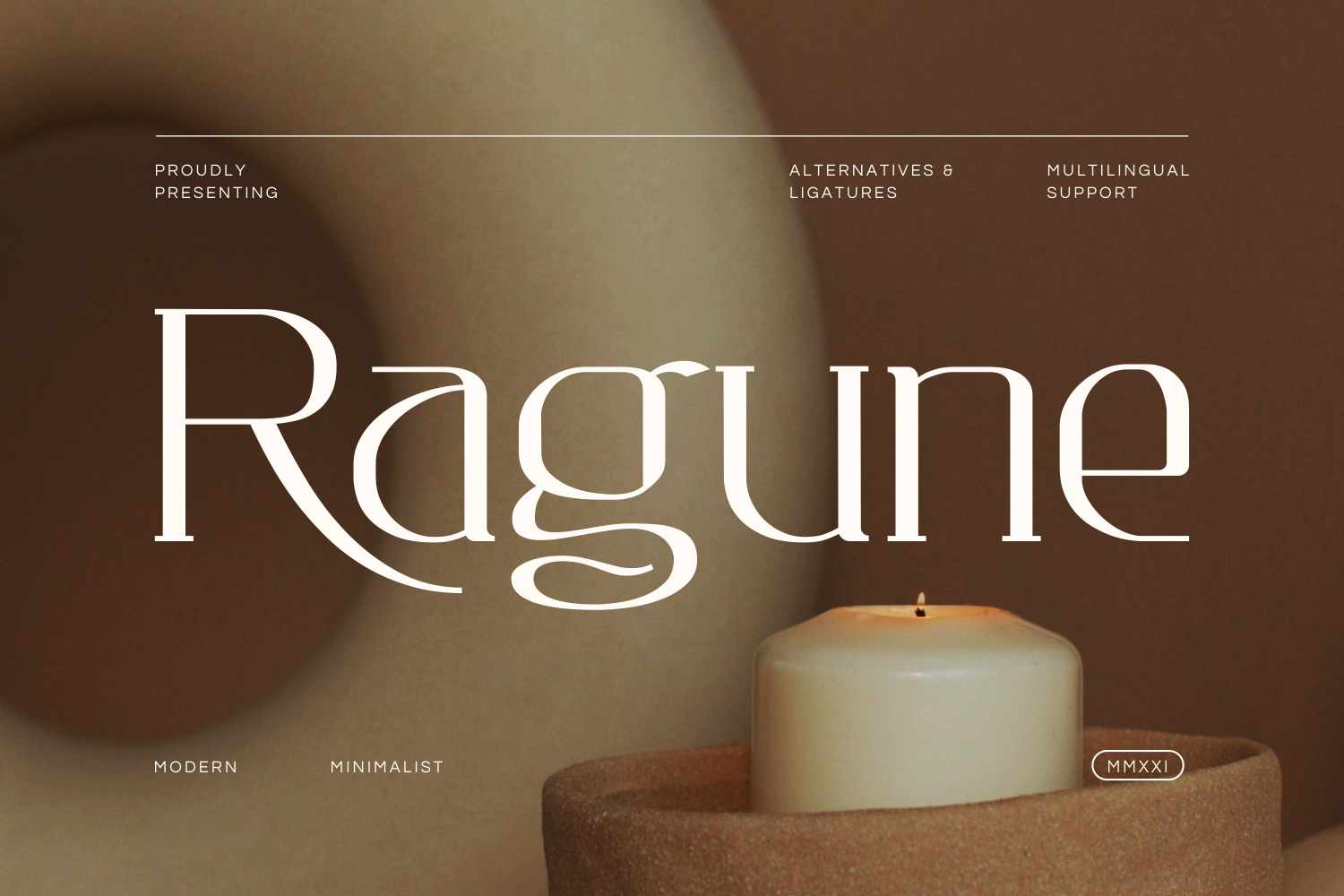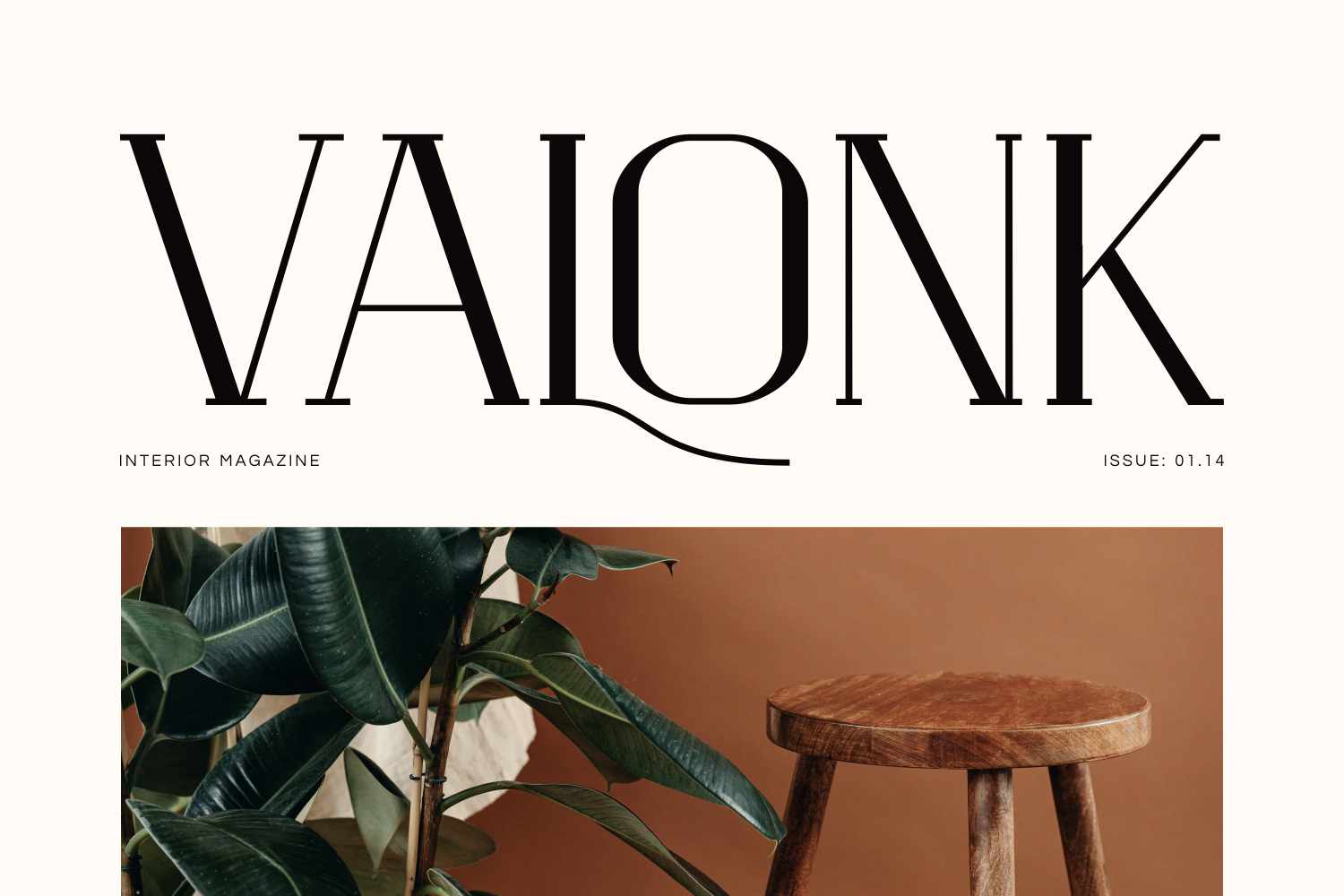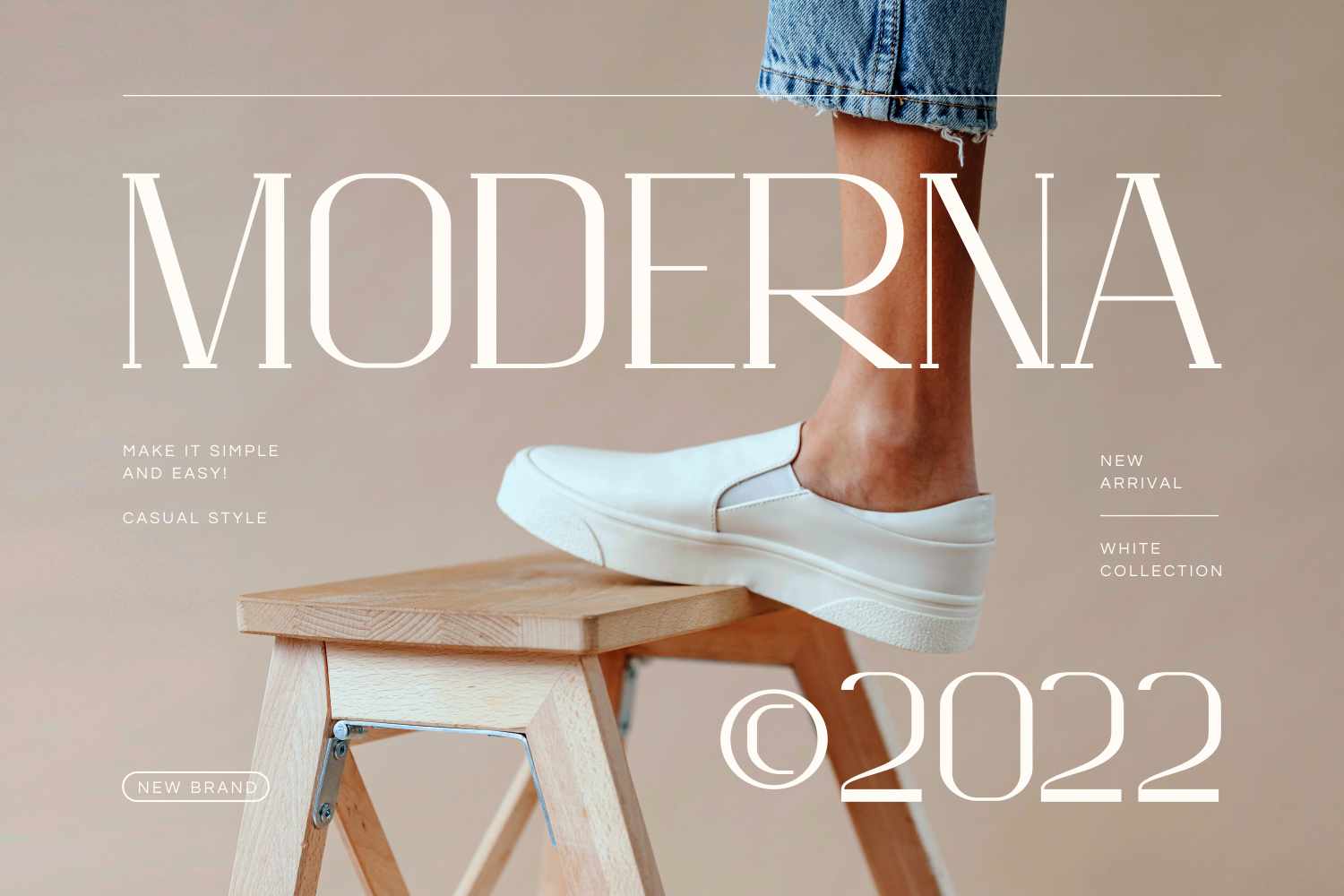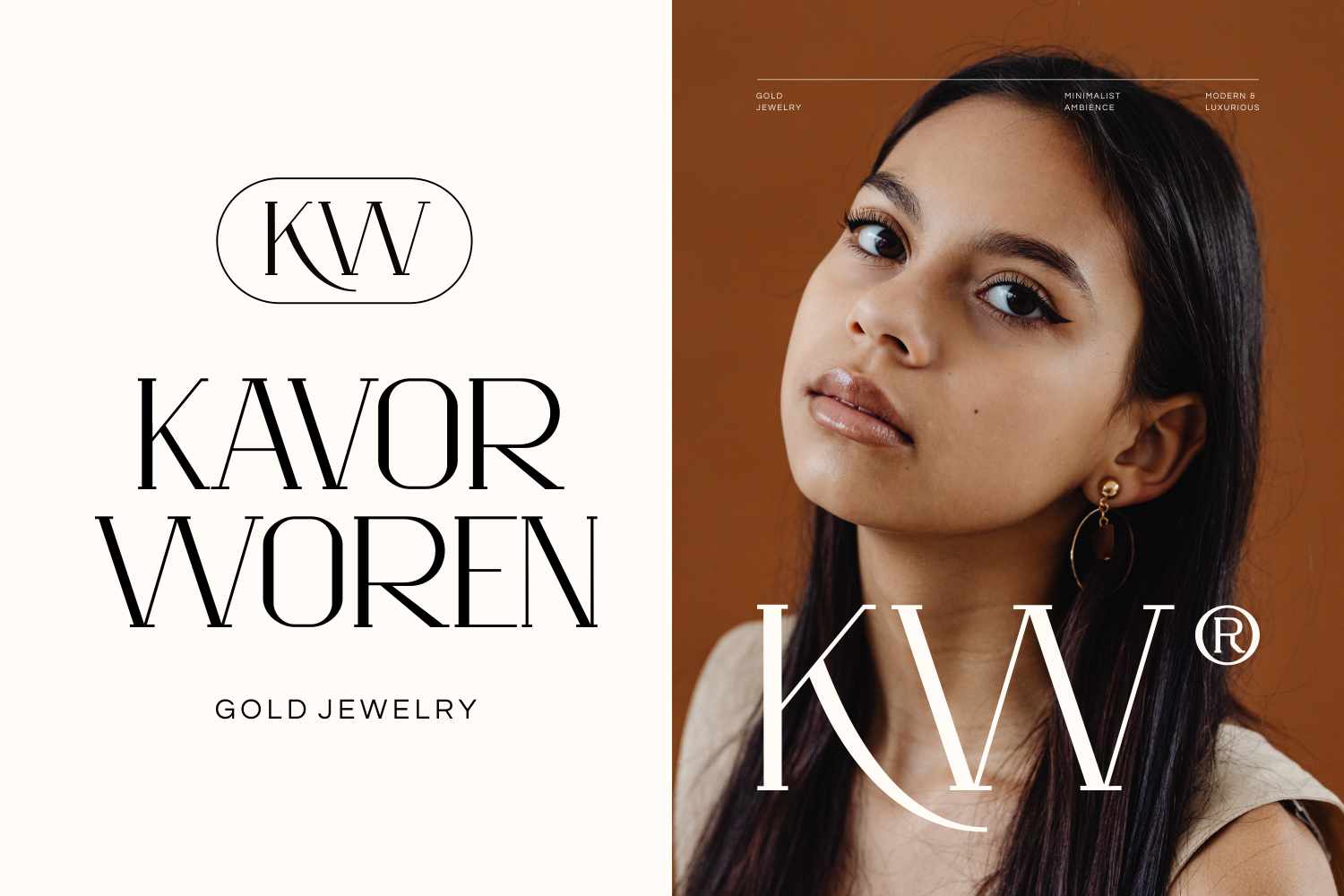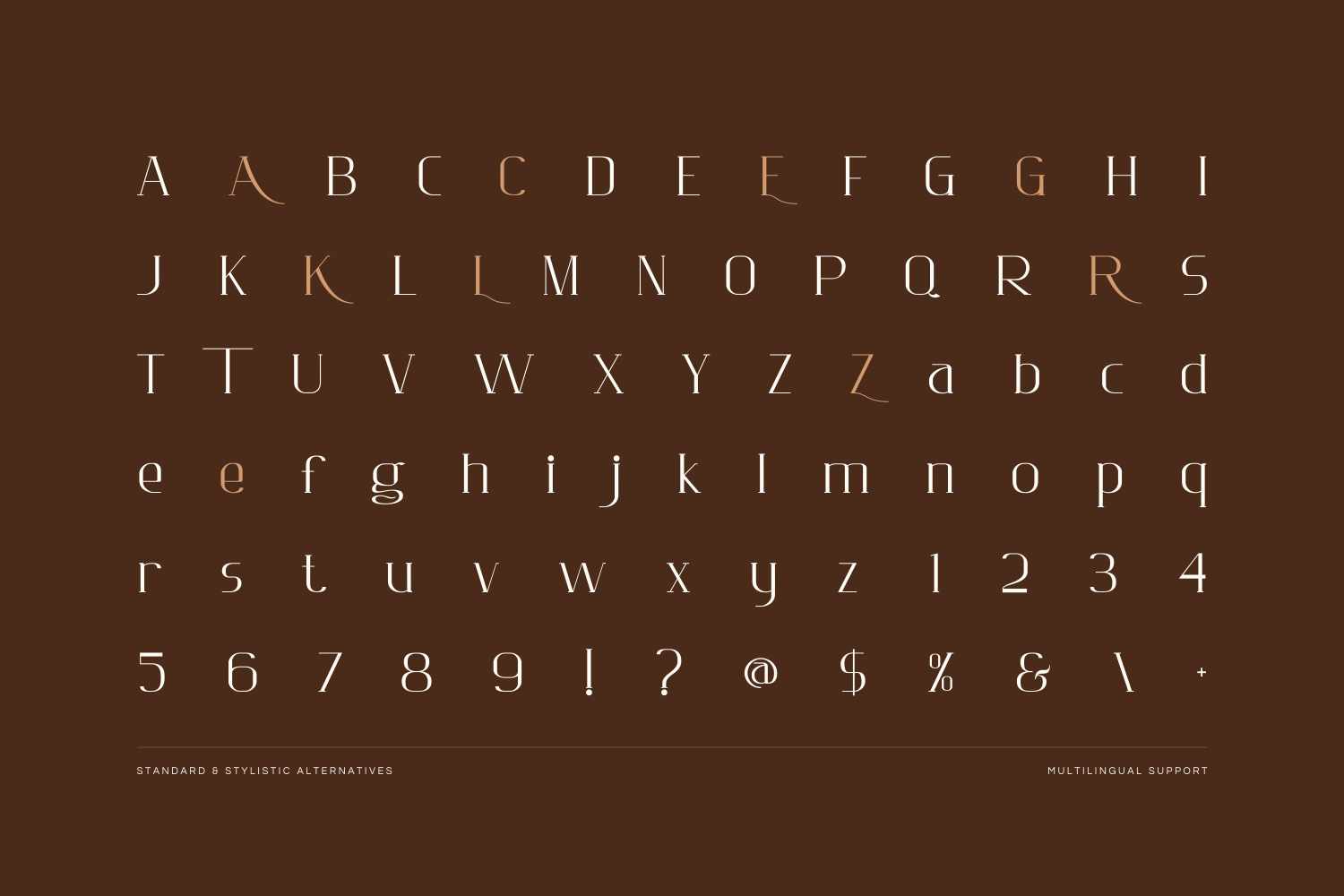
Ragune
Introducing Ragune, a modern serif font that blends elegance with artistic detail. With its sophisticated letterforms and subtle curves, Ragune is perfect for high-end branding, editorial design, packaging, and luxury fashion. Each glyph is crafted with precision to give your designs a sense of timeless beauty and refinement.
Ragune includes stylistic alternates and refined ligatures to elevate typographic creativity, as well as multilingual support for global applications. Whether you’re creating magazine layouts, logo marks, or boutique product packaging, Ragune provides a graceful typographic voice that stands out with confidence and clarity.